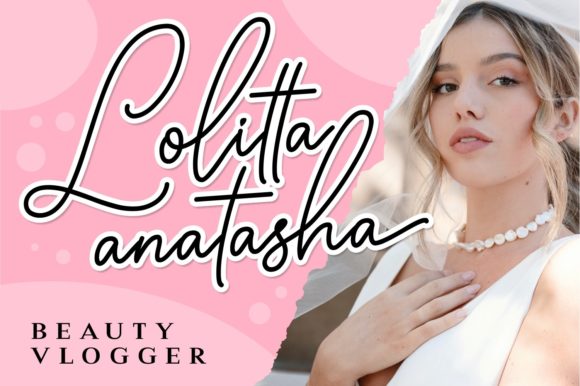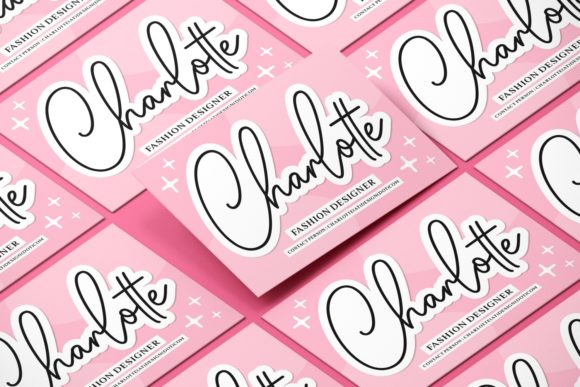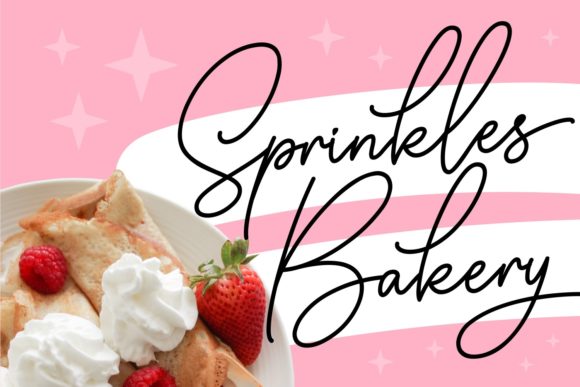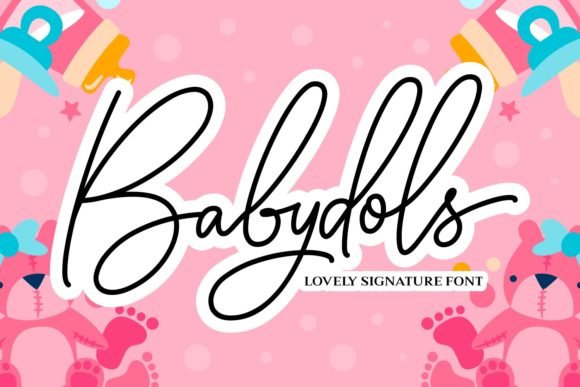
Discover the Magic of Babydols Font
Have you ever stumbled upon a quote or a logo that left you speechless, wondering how the designer managed to create something so captivating? That’s exactly what happens when the right font is used. For me, it was a beautiful handwritten font that immediately caught my attention and sparked a wave of creativity.
Enter Babydols Font, a lovely and timeless handwritten font that’s perfect for creating eye-catching logos, branding, and quotes. This font is a game-changer for designers, offering a unique and elegant touch to any project. With its PUA encoded features, you can easily access all glyphs and swashes, taking your designs to the next level.
Whether you’re a seasoned designer or just starting out, Babydols Font is a valuable addition to your toolkit. Its versatility and charm make it an ideal choice for a wide range of projects, from wedding invitations to social media graphics. So why settle for ordinary when you can have extraordinary with Babydols Font?
Babydols Font Key Features
- Font Style: Casual, Handwritten Font
- Unique Characteristics: Irregular letterforms, playful texture, and subtle imperfections to create a handwritten feel
Babydols Font Review
Overall, I think Babydols Font is a unique and playful typeface that can add a lot of personality to a design project. Here are some of its strengths:
- ✨ Whimsical feel: The font has a carefree, childlike quality that’s perfect for projects that need a lighthearted tone.
- ✨ Versatile: Babydols Font works well in both digital and print formats, making it a great choice for a wide range of applications.
- ✨ Customization options: The font offers a range of styles and sizes, allowing designers to customize it to fit their specific needs.
- ⚠️ Limited legibility: At smaller font sizes, the font can become difficult to read, which may be a problem for projects that require clear typography.
- ⚠️ Not ideal for formal projects: Babydols Font’s playful feel may not be suitable for more formal or professional projects, where a more serious tone is required.
Overall, I think Babydols Font is a great choice for designers who want to add a touch of whimsy to their projects. While it may not be the best choice for every project, it’s definitely a fun and versatile font that can add a lot of personality to a design.
Use Babydols Font for creative and whimsical designs, such as:
Children’s book illustrations
Party invitations and decorations
Custom signage and banners